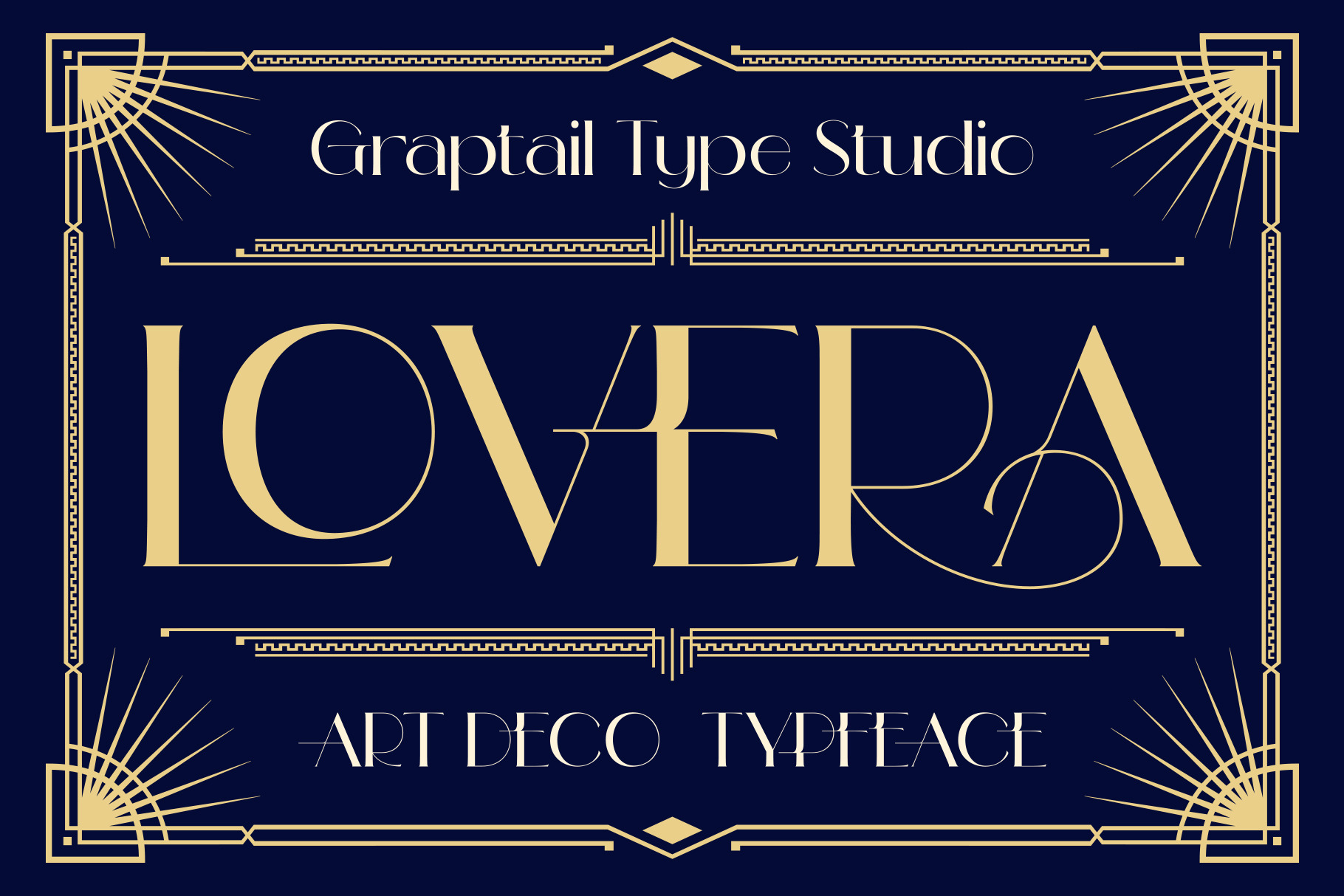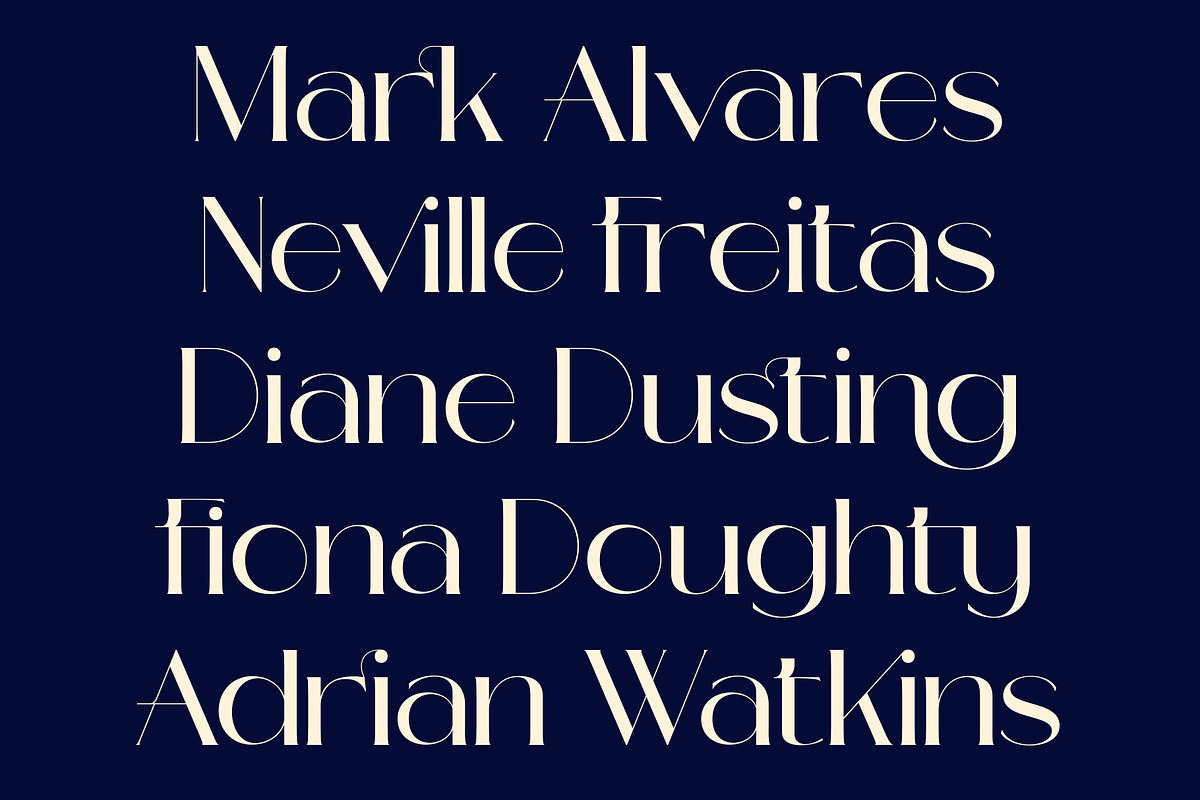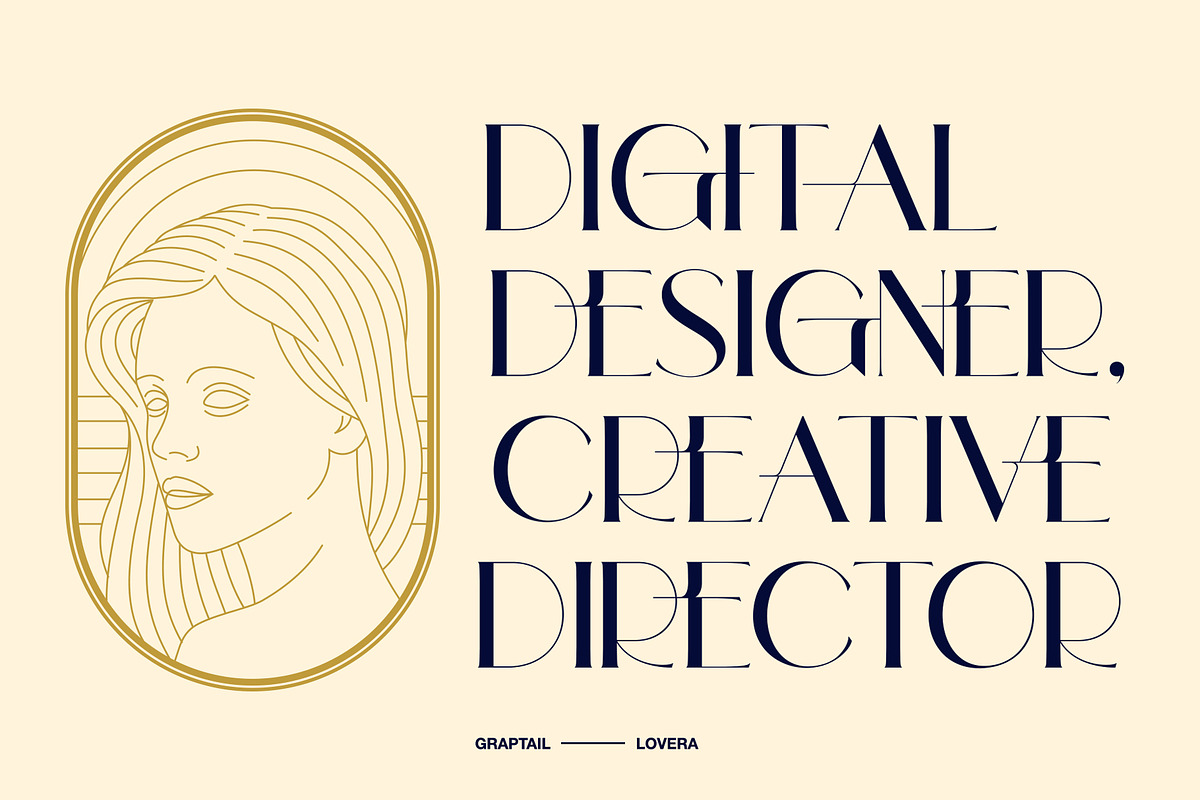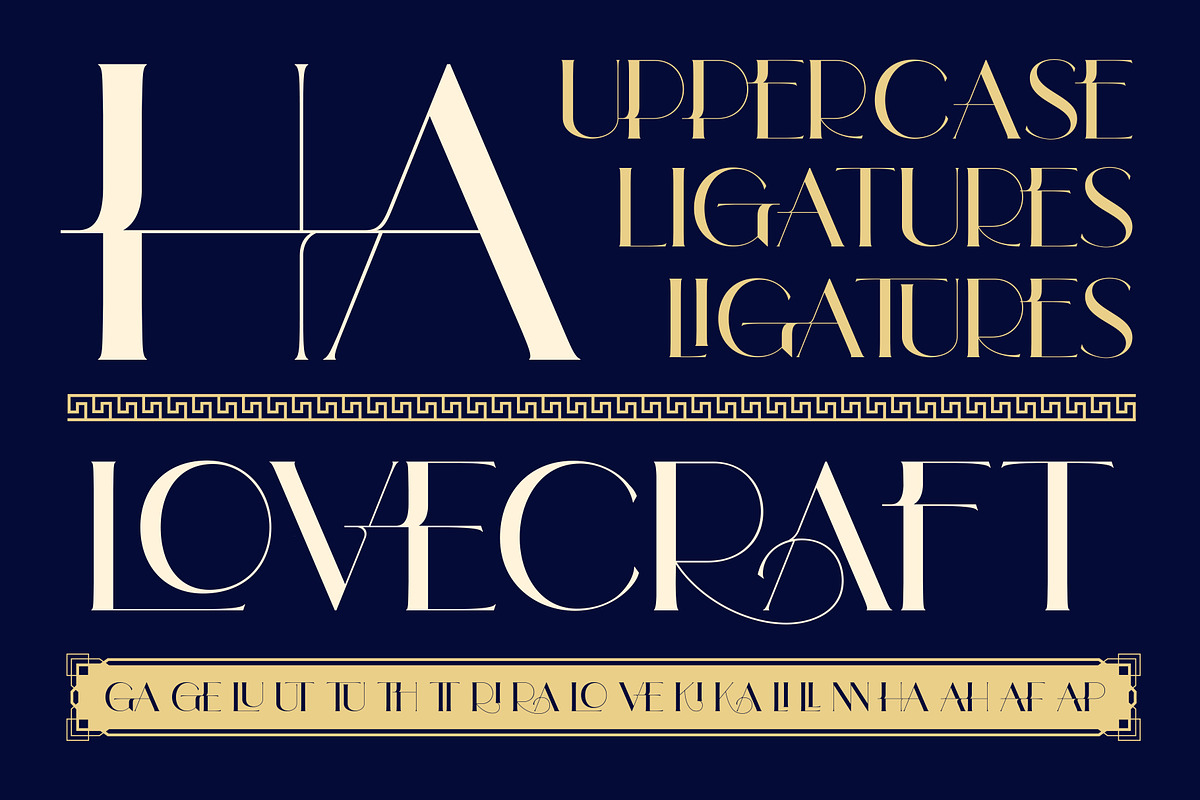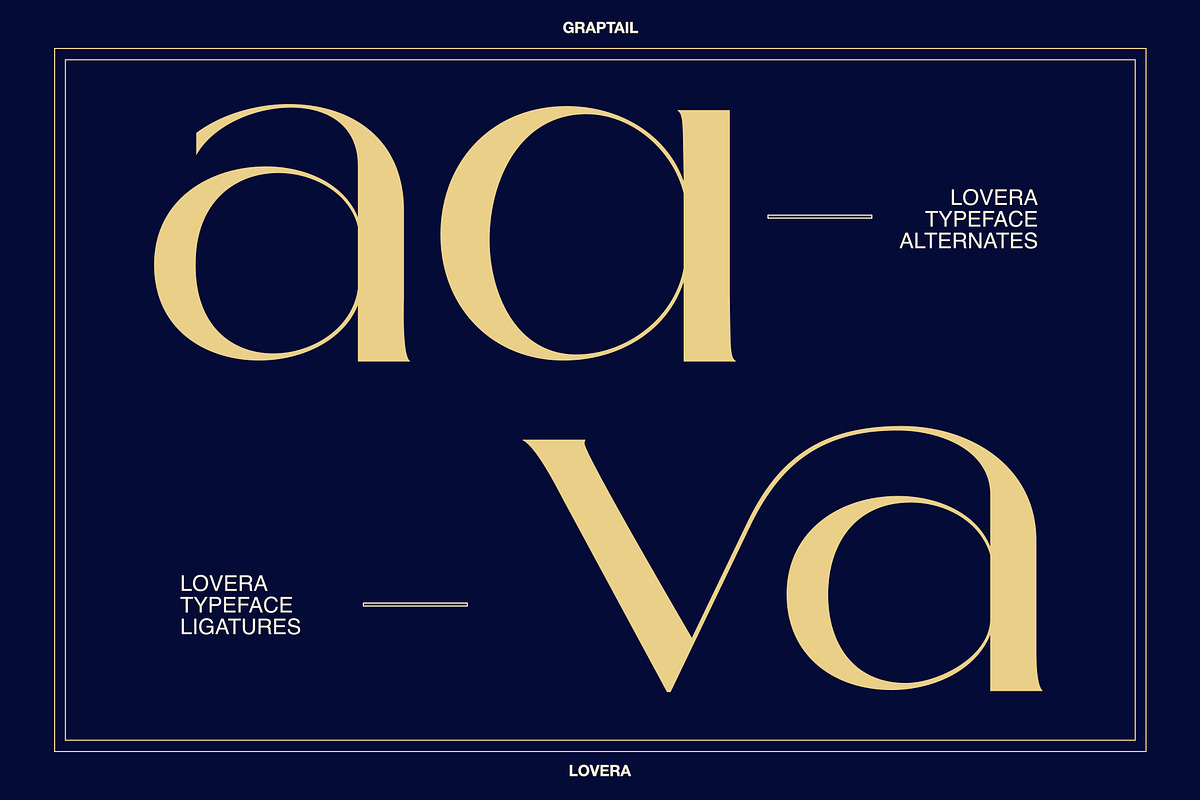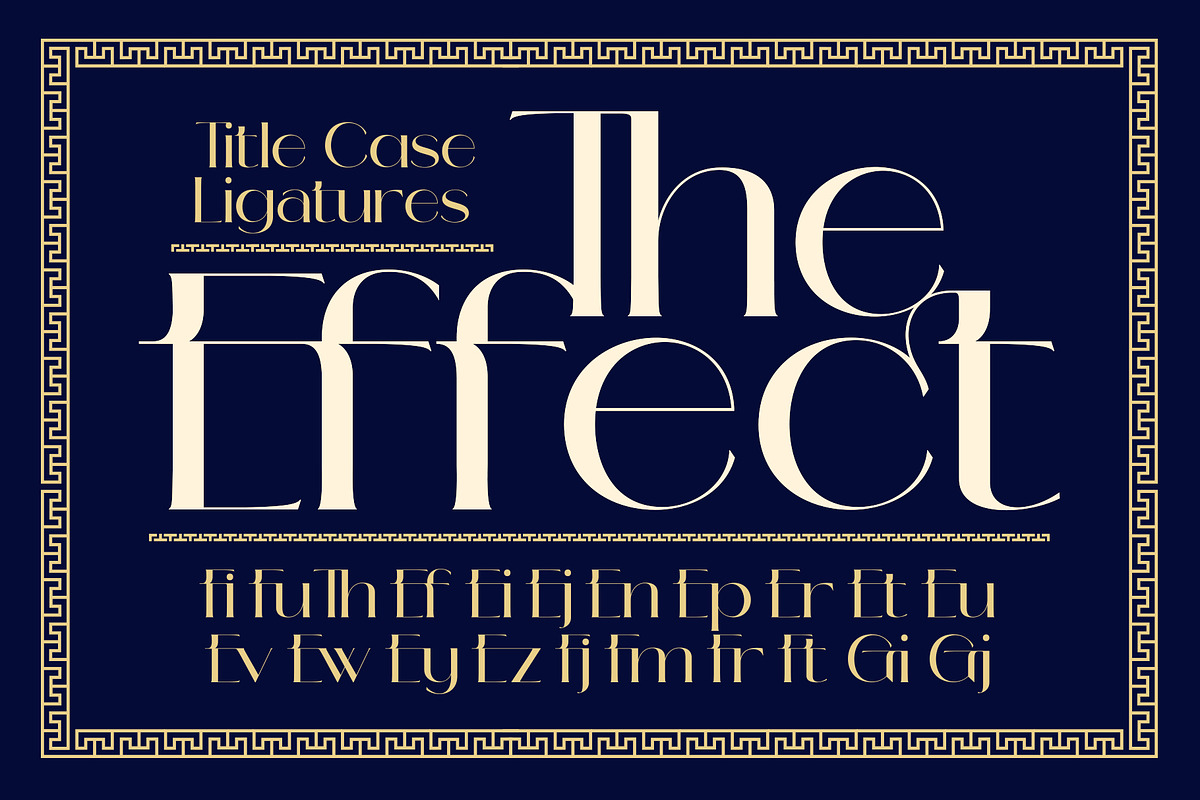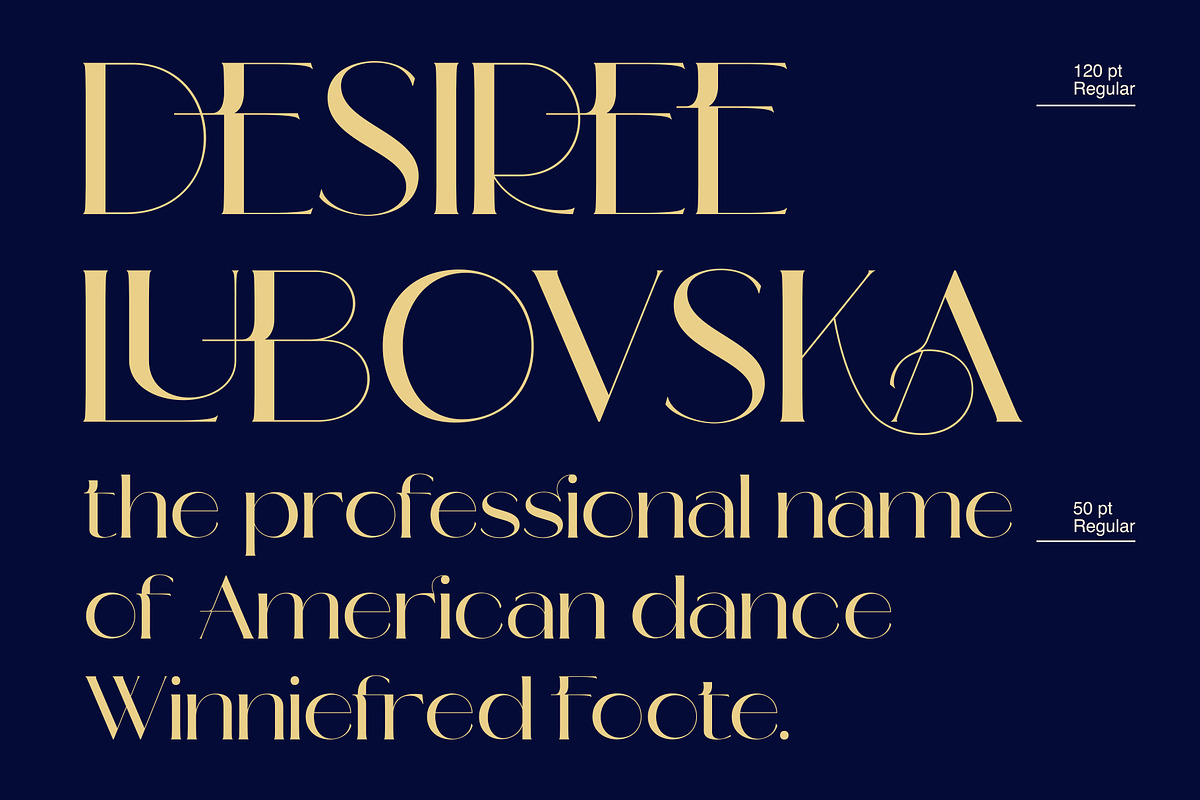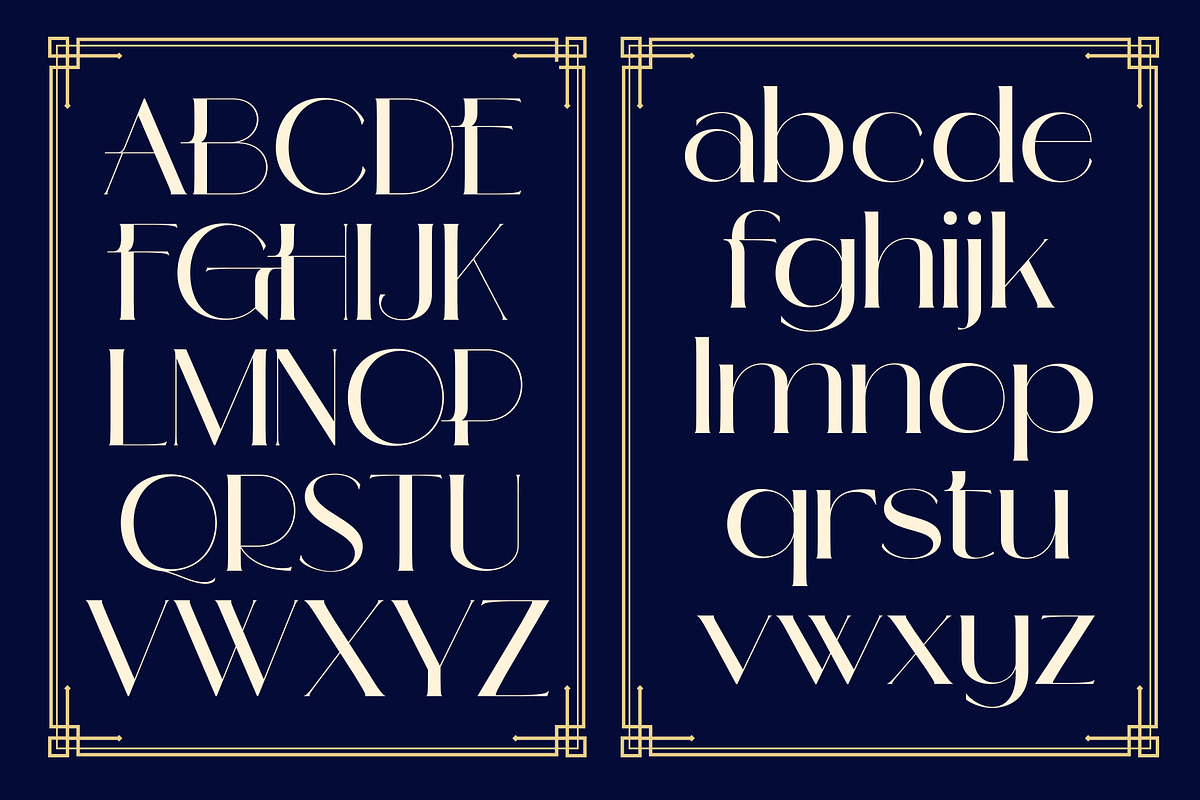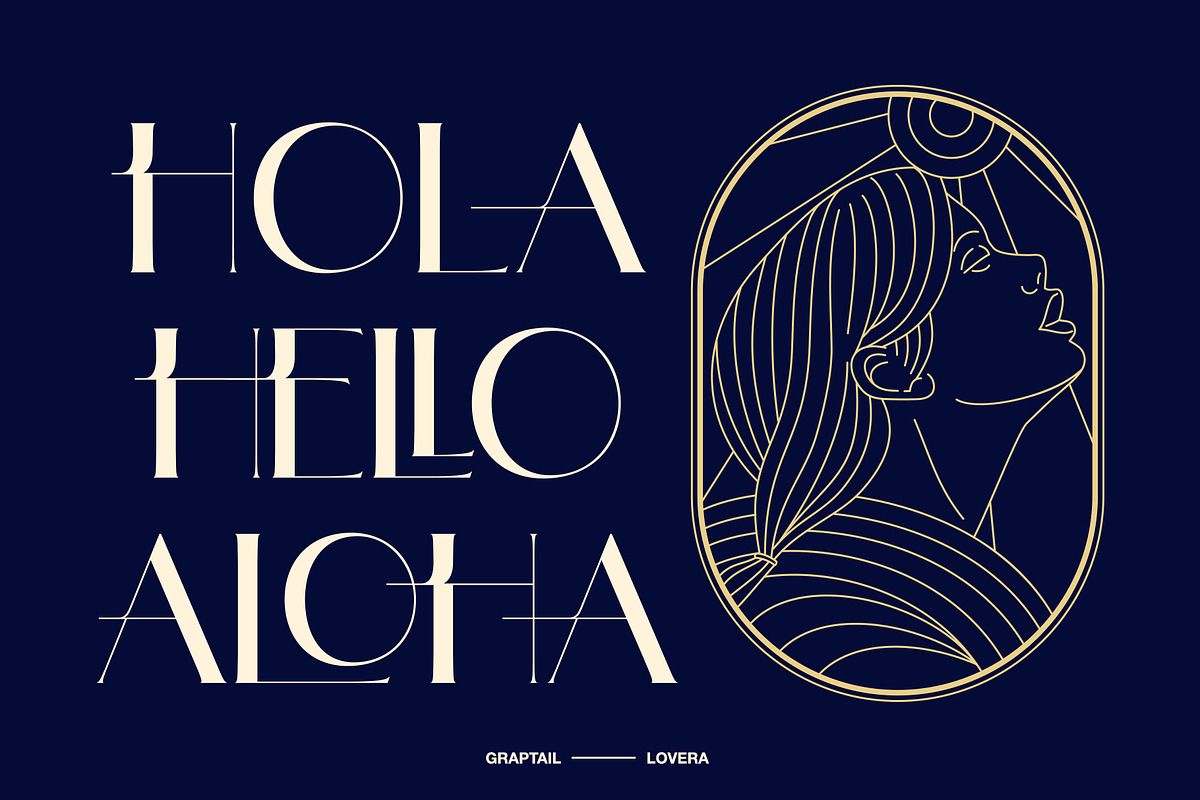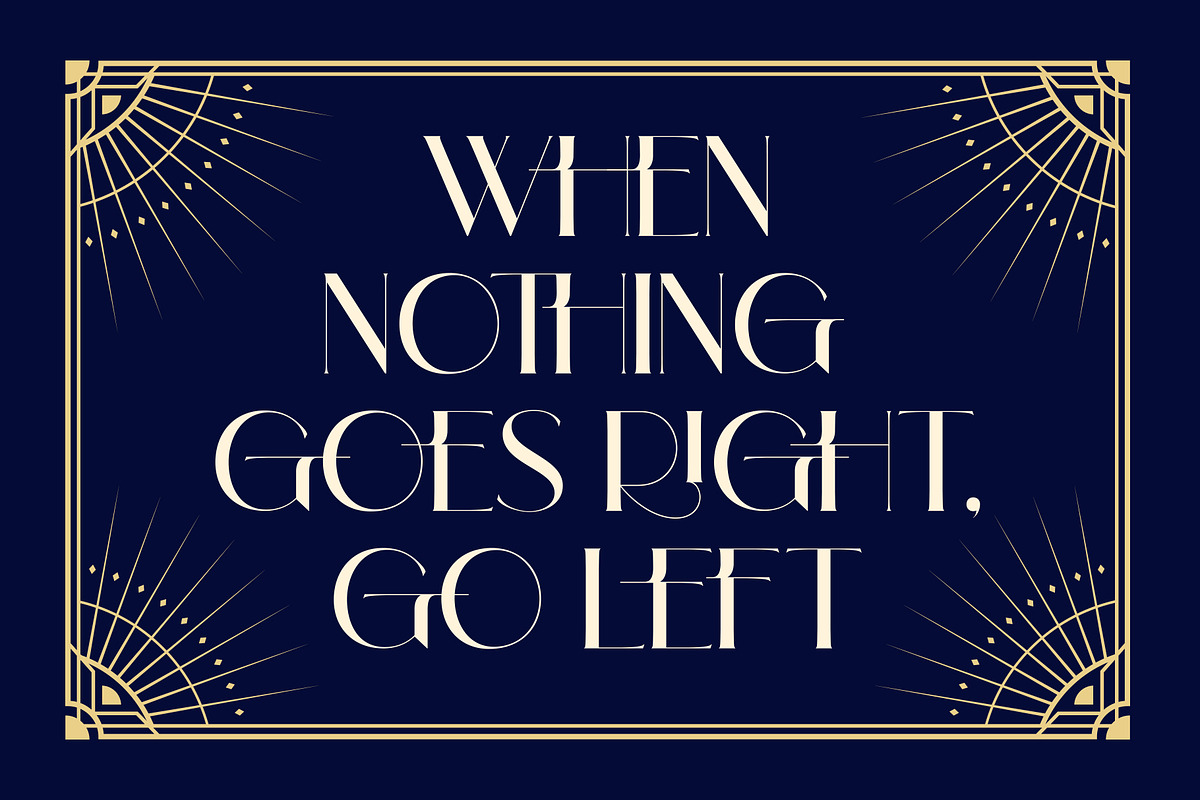
Lovera - Art Deco Typeface
This majestic typeface adds a elegant twist to any design. Although the inspiration for this typeface comes from the Art Deco era, Lovera Font feels modern and contemporary. The large selection of stylistic alternations and ligatures makes this serif font extremely versatile. A passionate curve gives a touch of beauty to this font. Come up with two different shapes in terms of uppercase letters that aim to distinguish between title of the letter and the paragraph.Use Lovera Font for branding, magazine design, logo design, headlines, posters, packaging, cards or your wedding invitation.
- All Alternates
- Discretionary Ligatures
- Oldstyle Figures
- Lining Figures
- Localized Forms
- Superscript
- Fractions
- Ordinals